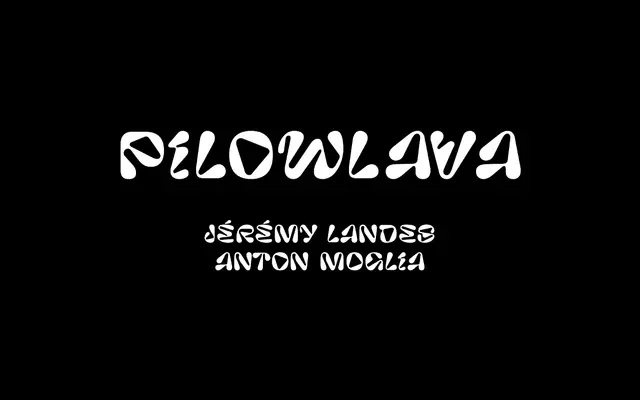
Pilowlava
Studio Triple · 2019
An open-source display typeface from Studio Triple with an organic, inflated character, released in 2019.
Released in 2019 by Studio Triple and made available as open-source, Pilowlava sits in the expressive end of display type with letterforms that suggest softness and volume. The name implies a pillow-like, rounded quality suited to editorial, poster and identity work where personality is the priority. Its open-source status makes it accessible for both commercial and experimental use.
Pilowlava is a decorative display typeface with an organic, inflated letterform quality suggested by its name; the page content is sparse but the name and context imply a display-only, expressive design.